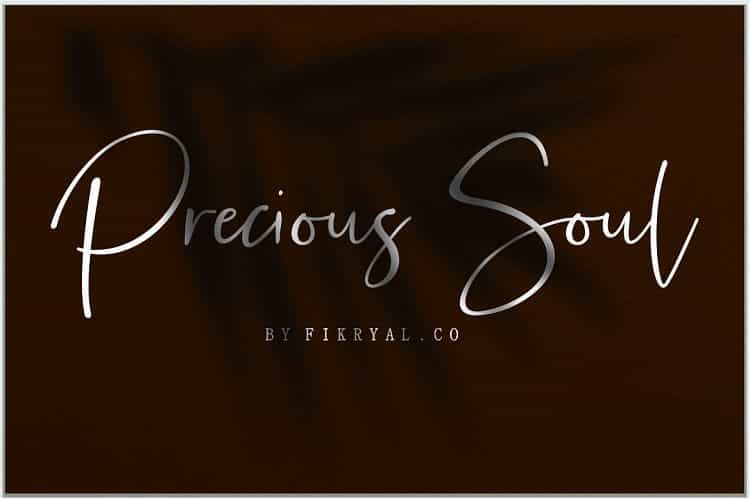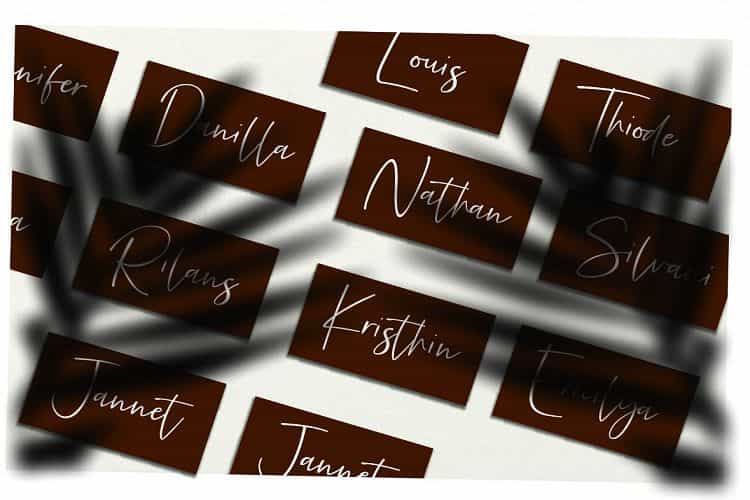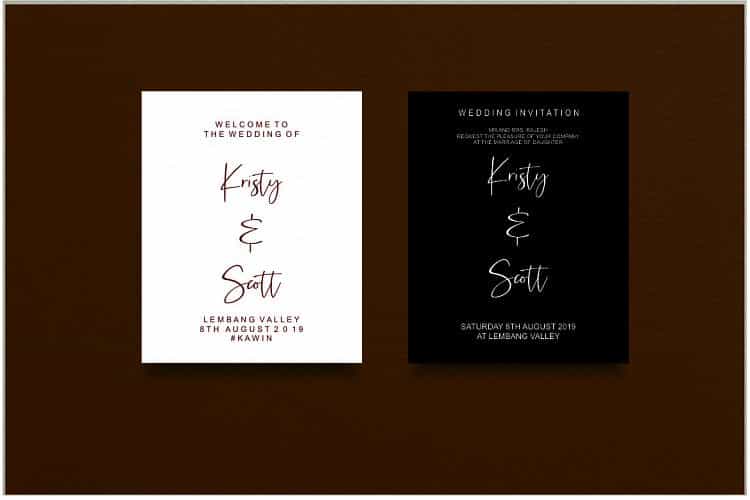
Discover Precious Soul Script Font, part of the Calligraphy Handwritten collection—a versatile and unique font perfect for adding a personal touch to your projects. Download it for free and enjoy crafting designs with style, from invitations to social media posts. This font is available exclusively for personal use, giving you the freedom to create without limits. Unlock your creativity with Precious Soul Script Font today!
Here is Precious Soul Script Font. It is the design and shared by fikryal. The Precious Soul – Handwritten Font is a new modern & stylish handwritten font. It’s the best for logo,branding,invitation,tittle,wedding designs,social media posts,advertisements and product packaging. It is also suitable for label photography watermark special event magazine web design etc.